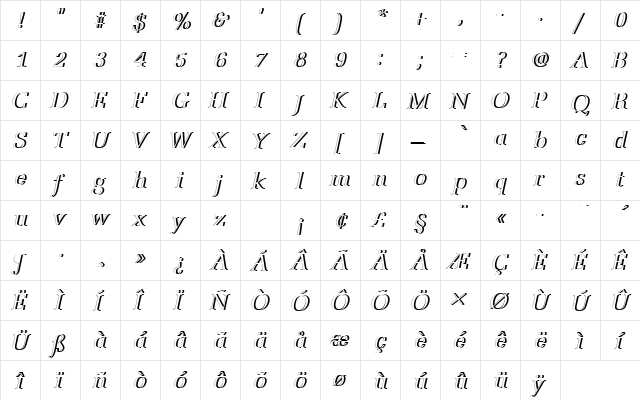
URWLatinoTRegItaRe1 Regular
URWLatinoTRegItaRe1 is a composed and adaptable typeface that performs quietly and consistently across a wide range of design contexts.